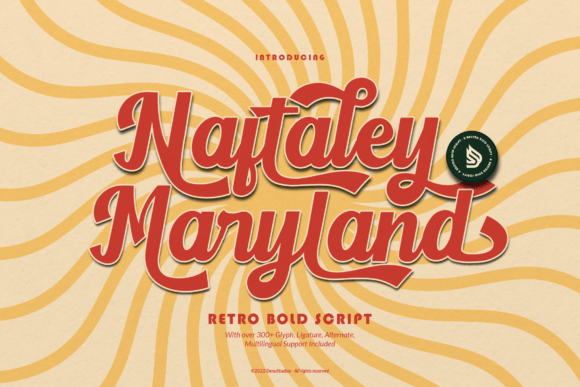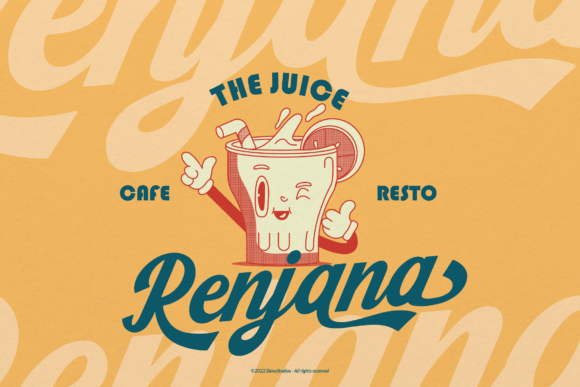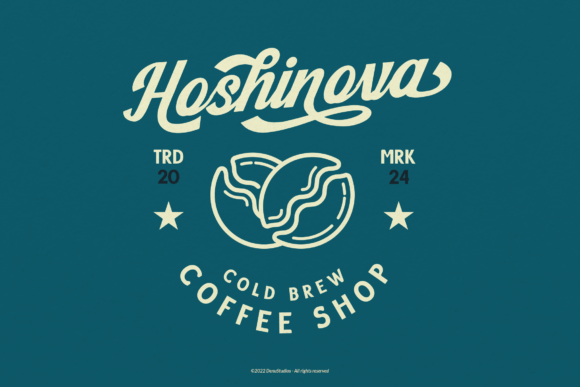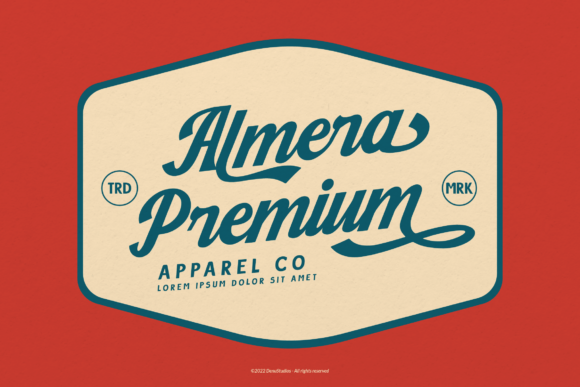
Naftaley Maryland Font
About the Naftaley Maryland Font
Explore the possibilities with Naftaley Maryland Font, a font that offers both beauty and functionality. Naftaley Maryland is a striking retro script font with bold, flowing curves and a nostalgic charm. Inspired by vintage signage and lettering, this font is perfect for branding, packaging, posters, and any project that needs a touch of retro flair. With stylish alternates and ligatures, it adds personality and dynamism to your typography.
Naftaley Maryland’s bold strokes and expressive curves make it ideal for headlines, logos, and short, impactful text on packaging or posters. Its retro charm works exceptionally well for brands aiming for a vintage or nostalgic aesthetic, particularly in food, beverage, or entertainment industries. However, its highly stylized nature makes it unsuitable for body text or UI elements where legibility is paramount. Avoid using it in long paragraphs or for small sizes.
To balance its strong personality, consider pairing Naftaley Maryland with a clean sans-serif like Montserrat for a modern contrast, or a classic serif such as Garamond for a more traditional feel. A simple geometric sans-serif like Futura could also provide a striking counterpoint to its flowing forms. Avoid pairing it with other highly decorative or script fonts to prevent visual clutter.
The overall personality of Naftaley Maryland is bold, expressive, and undeniably retro. Its confident energy is best suited to projects that demand attention and convey a sense of vintage-inspired quality or playful sophistication.
Naftaley Maryland Font Usage Examples
Naftaley Maryland Font Example